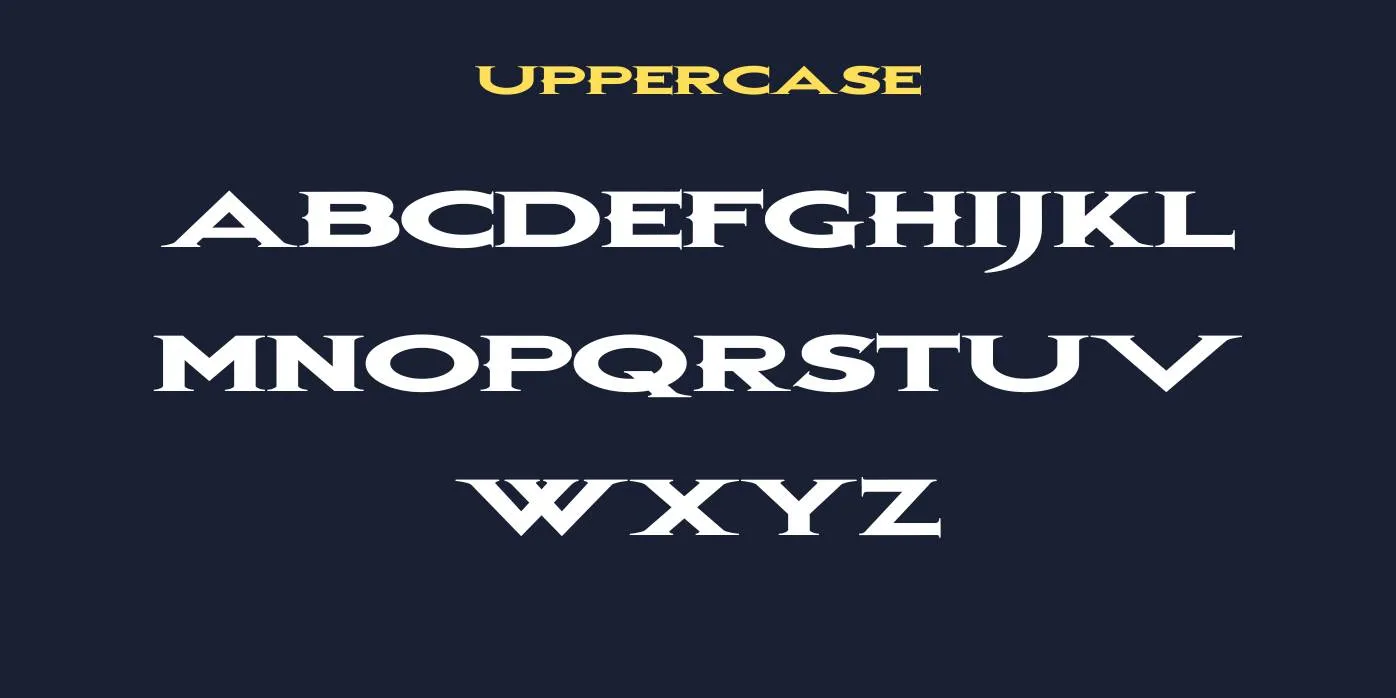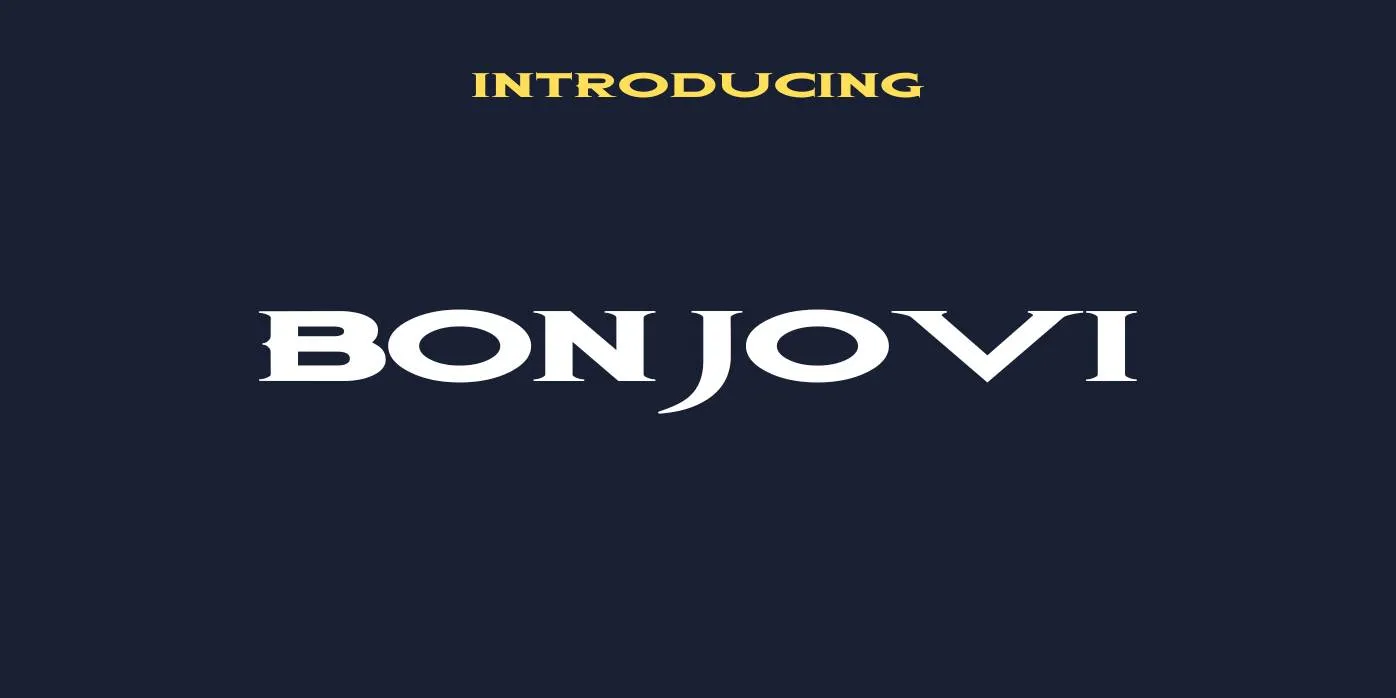
Bon Jovi Font
Bon Jovi Font is an attractive and amazing font. It was designed by a very famous typographic designer Tyler Finck and manufactured by Bon Jovi. It contains 225 characters, 161 glyphs, and 1000 units per Em. This font belongs to the free forms serifs family class.
this font has all-caps letters which make it look strong and unique. It is a good choice to make different types of headlines. You can make logos and image designs using Canva software. You can pair this fonts with other fonts by using CSS.
It can be used to make attractive posters, banners, and flyers. Its bold look can easily be readable even in small-size text. You can also use it to make other display projects. This font is used by many big brands and music companies.
Is Bon Jovi Font easy to read? Yes, you can read it it has a tall x-height and its characters give a bold look which gives a strong look and can be read easily. Is Bon Jovi a default font? No, it is not a default font.
Yes, it is a very good font to use on many projects like making wedding invitations, for making banners, posters, and much more.